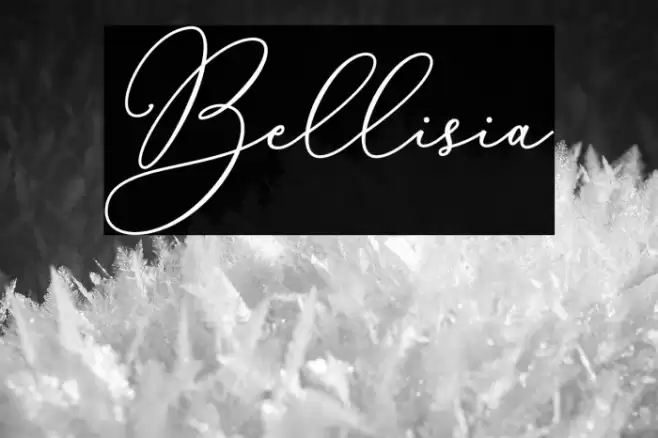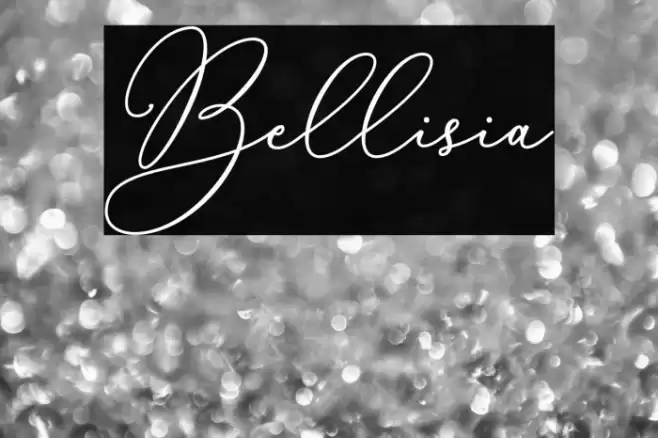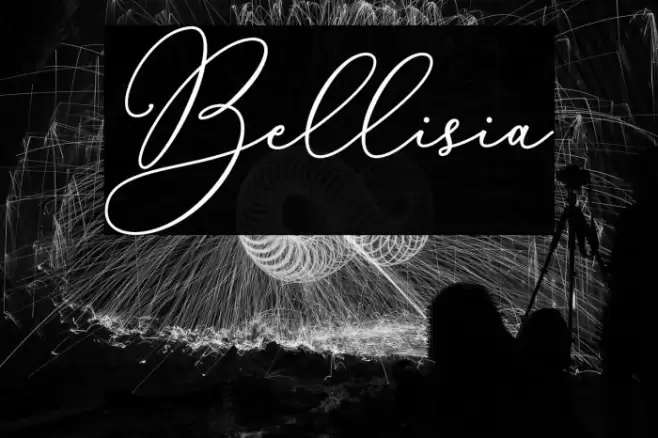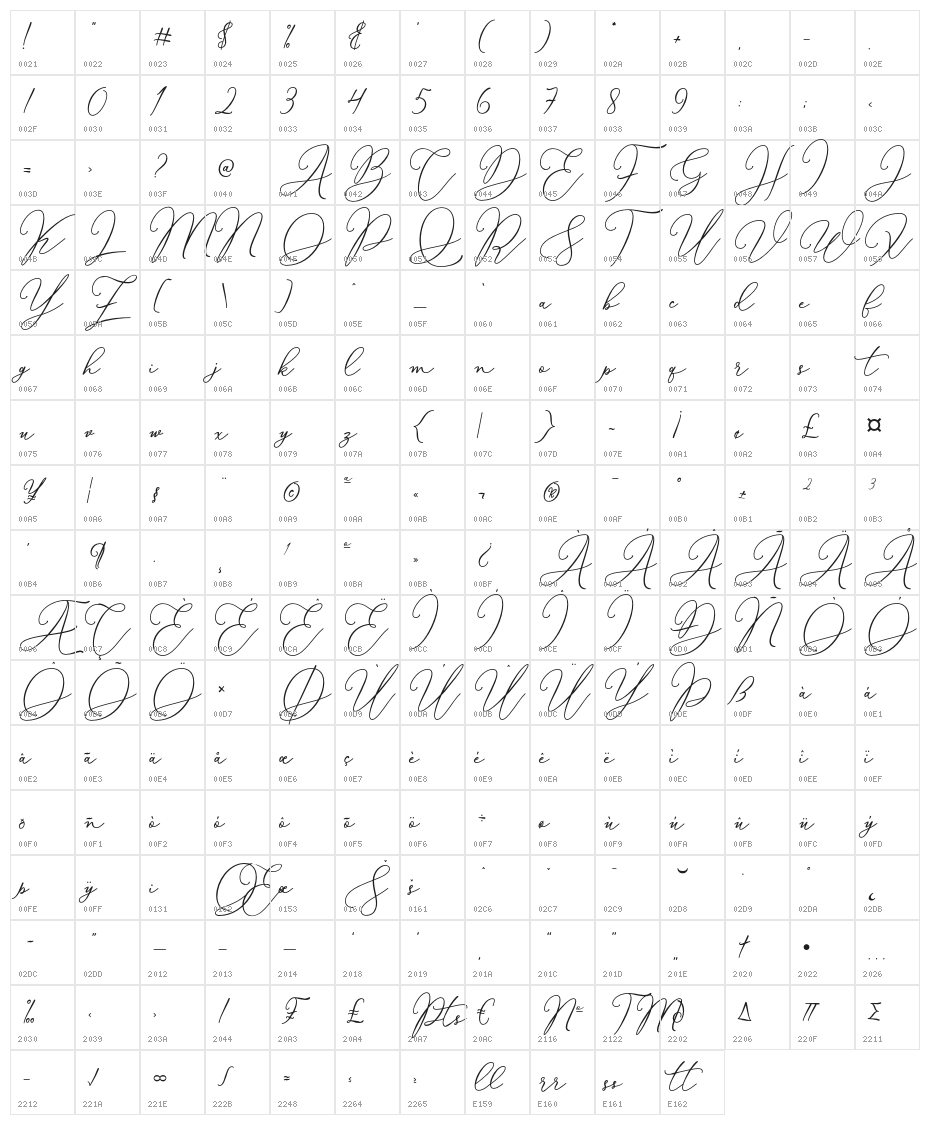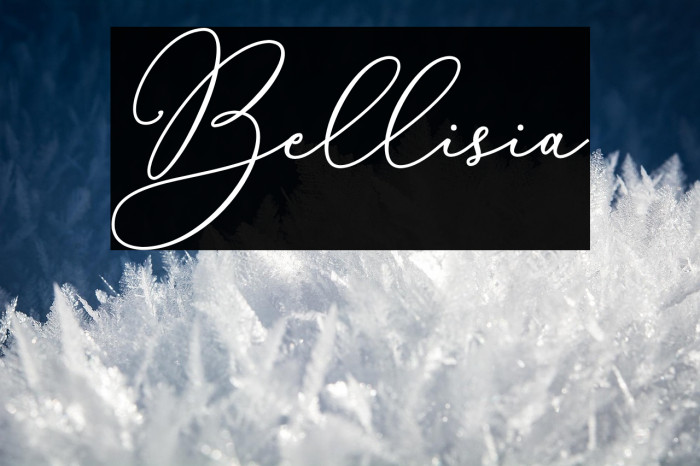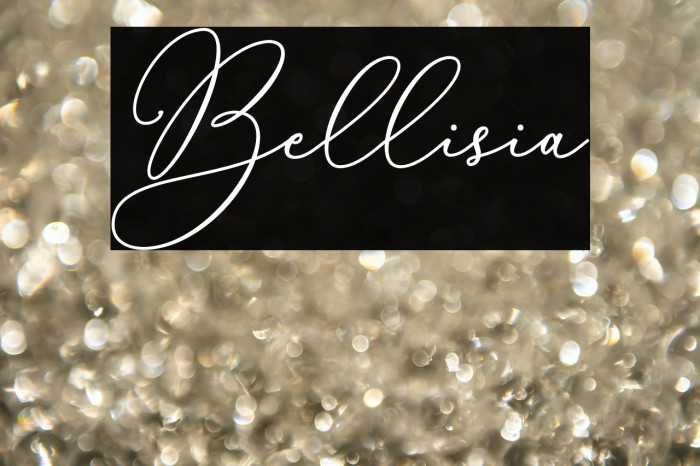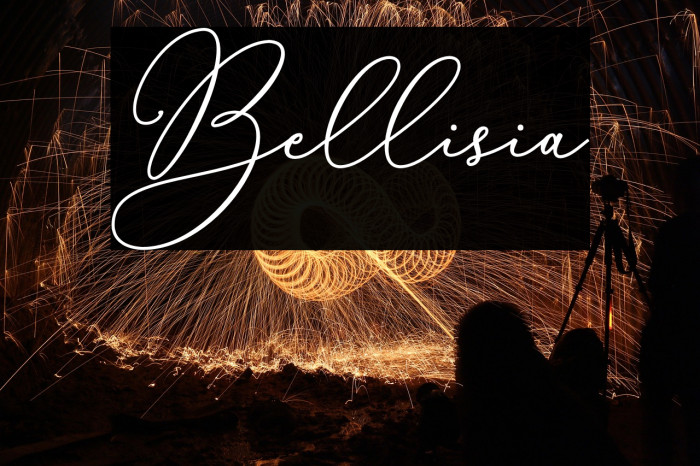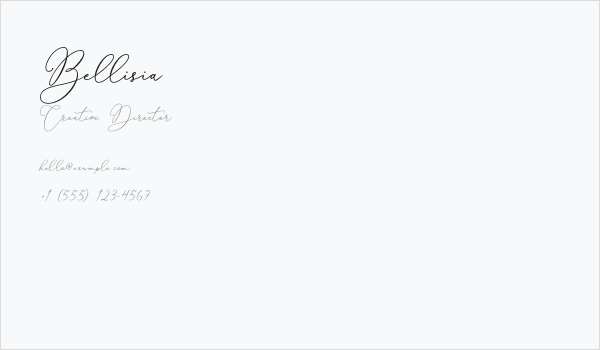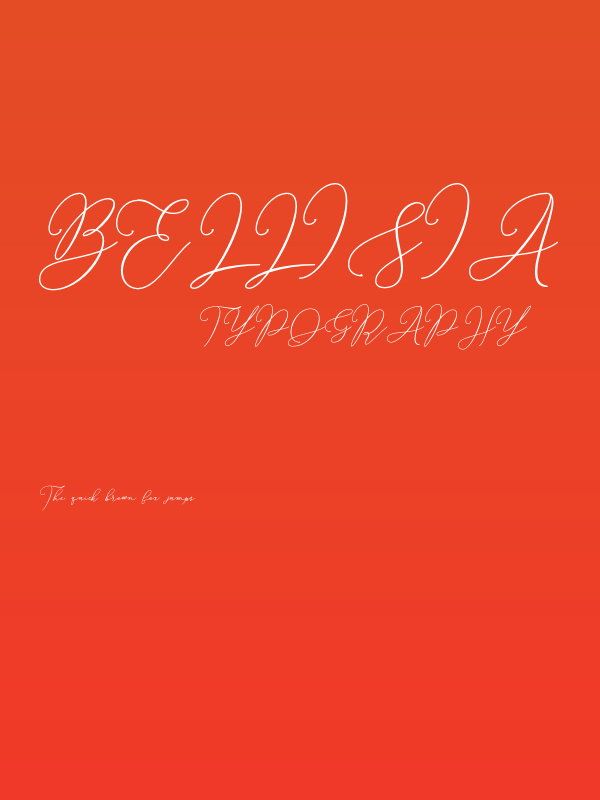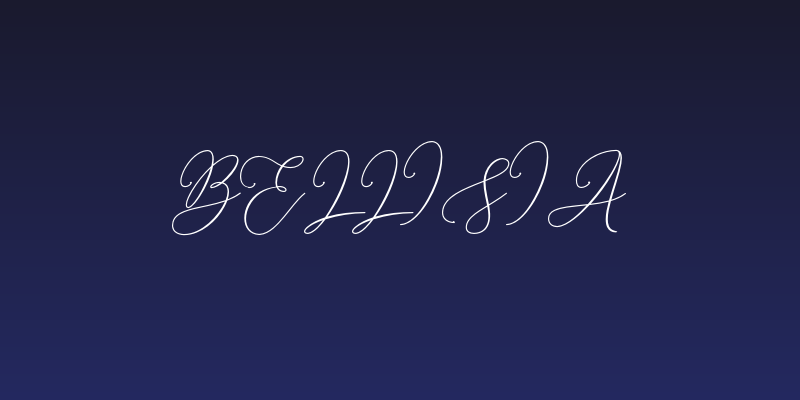
Bellisia Font
Bellisia Description
This elegant script font features fluid, connected strokes that mimic the natural flow of handwriting. The uppercase letters are gracefully elongated with gentle curves, while the lowercase letters maintain a consistent, smooth rhythm. The numerals and special characters are designed with the same flowing style, adding a touch of sophistication. The overall appearance is both refined and approachable, making it suitable for a variety of design projects. The font's delicate lines and balanced proportions create a harmonious and visually appealing aesthetic.
An elegant script font with fluid, connected strokes and a natural handwriting style from Regular fonts.
- Proposed Projects: Ideal for wedding invitations, greeting cards, branding, and elegant packaging designs.
- Overall Style: Elegant
- Use Case: Logos, Invitations, Greeting Cards